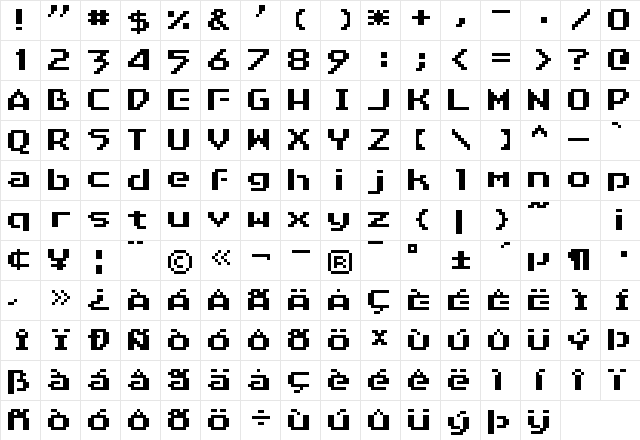
Arcology Regular Free Font
Arcology Regular
Designer: Caveras / Cliff Modes
Design Context for Arcology
Arcology is a composed and adaptable typeface that performs quietly and consistently across a wide range of design contexts.